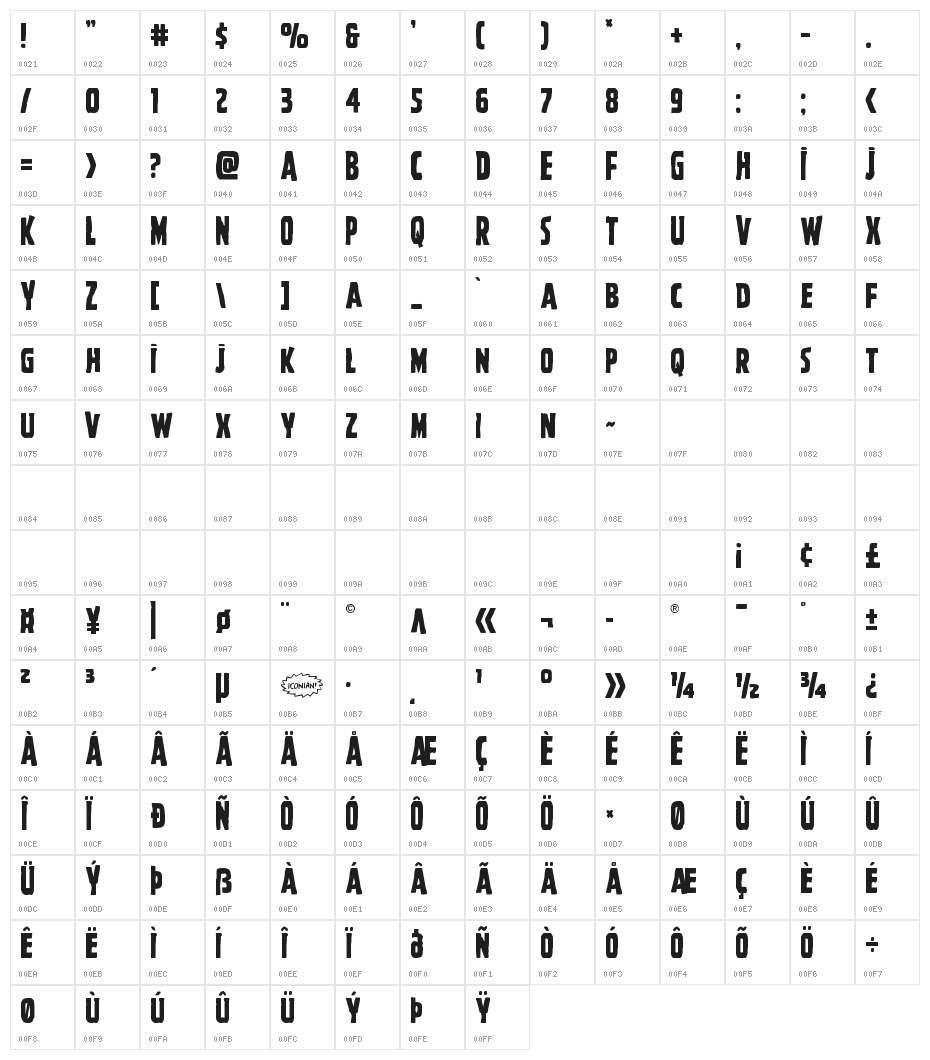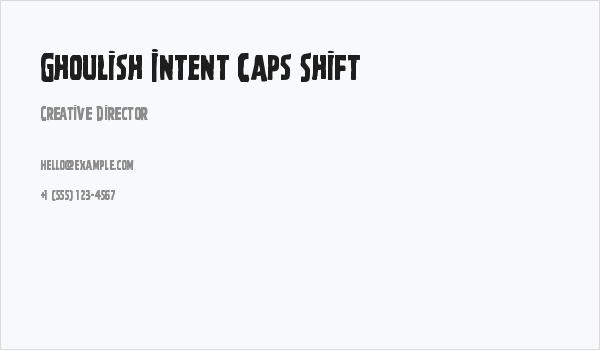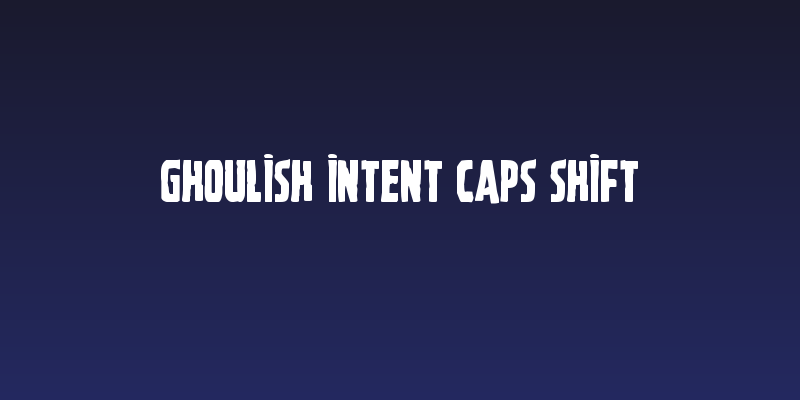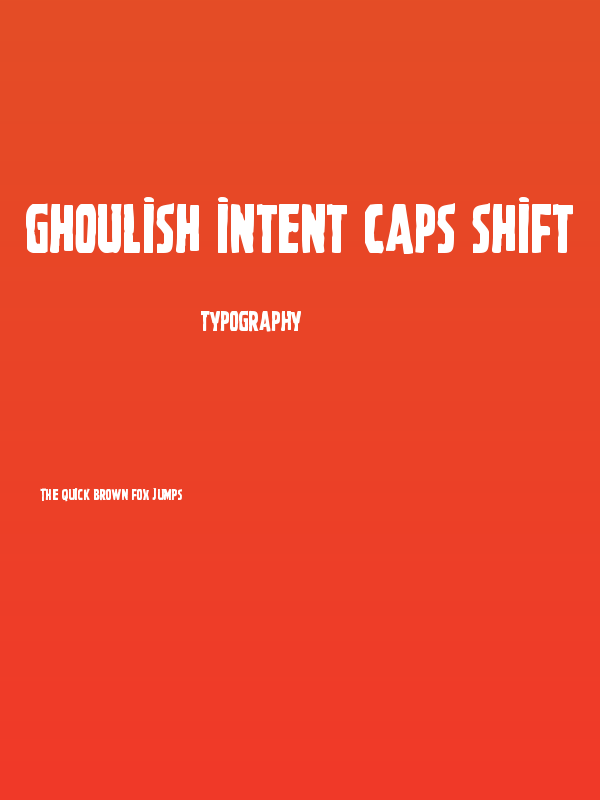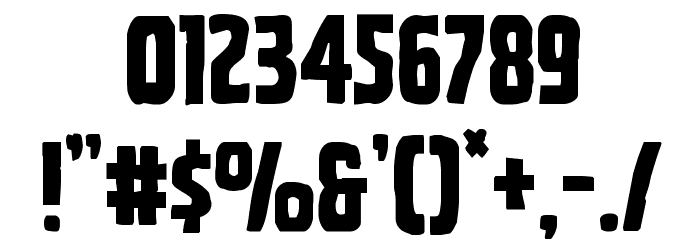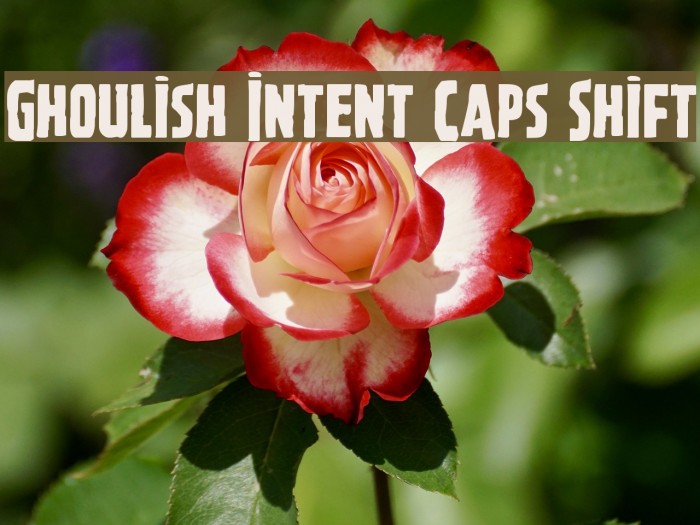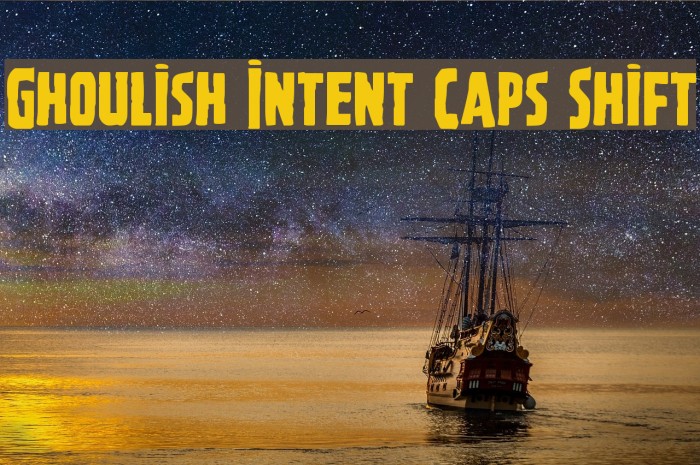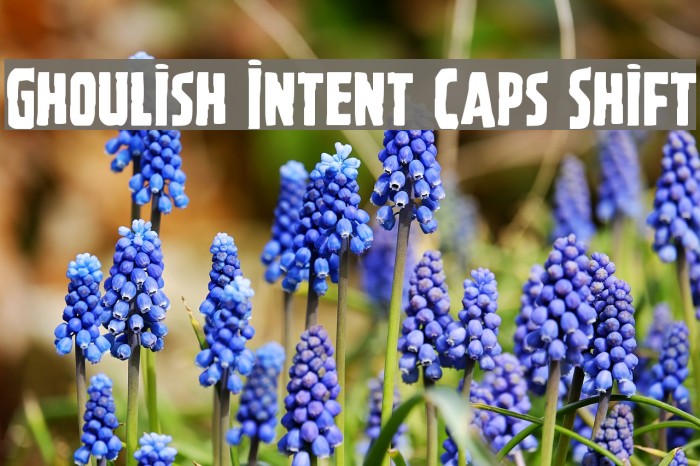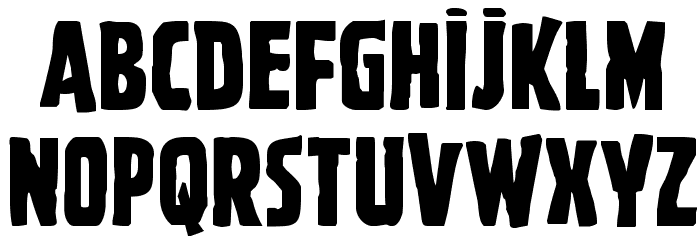
Ghoulish Intent Caps Shift Font
Ghoulish Intent Caps Shift Description
This font features a bold and striking design with a slightly distressed appearance, giving it a spooky and eerie vibe. The characters are thick and heavy, with irregular edges that create a sense of movement and energy. The uppercase letters are uniform in height, while the numbers and special characters maintain the same bold style. This font is perfect for creating eye-catching headlines or titles that need to convey a sense of mystery or horror. Its unique style makes it stand out, making it ideal for themed projects or designs that require a dramatic impact.
| Proposed Projects | Ideal for Halloween-themed designs, horror movie posters, spooky event invitations, or any project needing a dramatic, mysterious touch. |